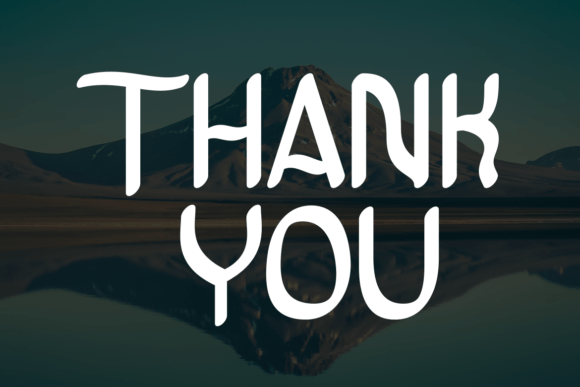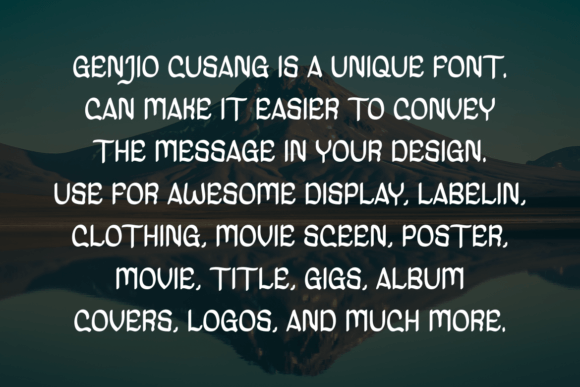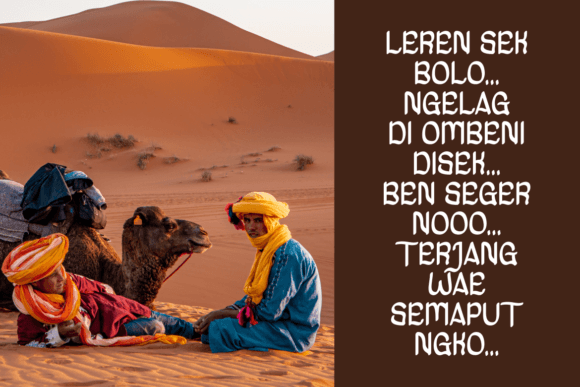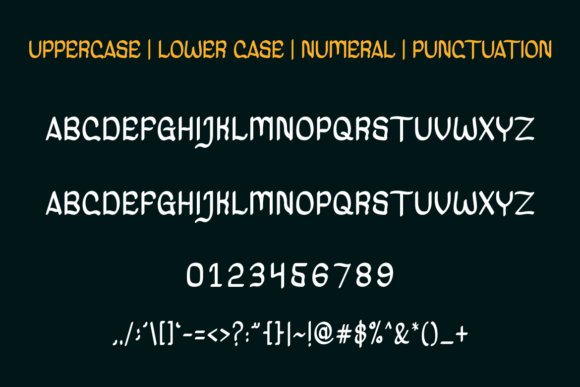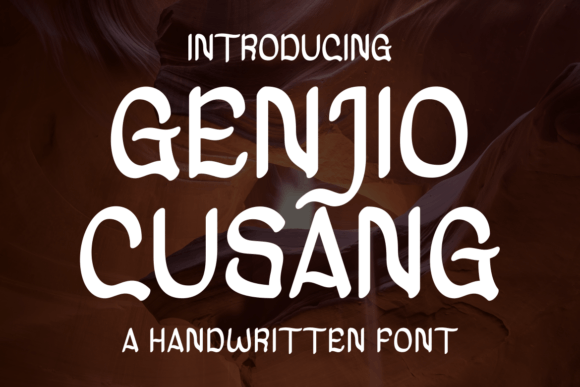
Introducing GENJIO CUSANG: The Ultimate Font for Creative Expression
In the world of design, typography plays a crucial role in conveying messages and capturing the audience’s attention. With the numerous fonts available, finding the perfect one that stands out from the crowd can be a daunting task. However, if you’re looking for a unique font that can elevate your designs, look no further than GENJIO CUSANG. This exceptional font is designed to make it easier to convey your message, and its versatility makes it suitable for a wide range of applications.
What Makes GENJIO CUSANG Special?
GENJIO CUSANG is not just another font; it’s a game-changer for designers and crafters. Its distinct style and characteristics make it an excellent choice for various design projects, including:
- Awsome display designs
- Labeling and packaging
- Clothing and apparel design
- Movie screens and titles
- Movie titles and trailers
- Gigs and event promotions
- Album covers and music branding
Whether you’re working on a personal project or a client’s commission, GENJIO CUSANG is sure to impress. Its unique style will help you create stunning designs that capture the essence of your message.
Key Features of GENJIO CUSANG
GENJIO CUSANG comes with an impressive set of features that make it a valuable addition to your font library:
- Uppercase and lowercase letters
- Numbers and punctuation marks
With these features, you’ll have the flexibility to create a wide range of designs, from simple and elegant to complex and bold.
Tips for Using GENJIO CUSANG
To get the most out of GENJIO CUSANG, here are some tips to keep in mind:
- Experiment with different font sizes and colors to create visual hierarchy
- Pair GENJIO CUSANG with other fonts to create a unique contrast
- Use GENJIO CUSANG for headlines and titles to grab attention
- Take advantage of the font’s versatility to create a consistent brand identity
By following these tips, you’ll be able to unlock the full potential of GENJIO CUSANG and take your designs to the next level.
In conclusion, GENJIO CUSANG is a unique and versatile font that’s perfect for designers and crafters looking to elevate their designs. With its distinct style, wide range of applications, and compatibility with multiple file formats, GENJIO CUSANG is an excellent addition to any font library. So why wait? Download GENJIO CUSANG today and start creating stunning designs that capture the essence of your message.